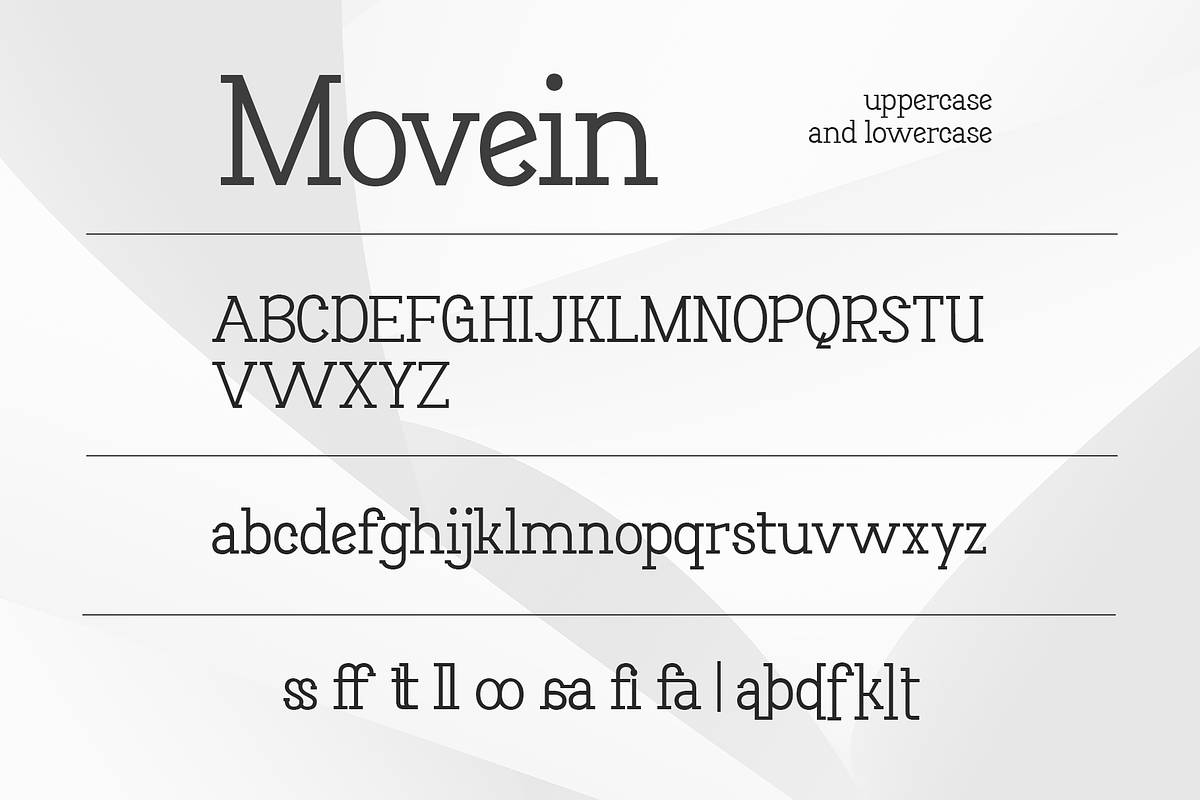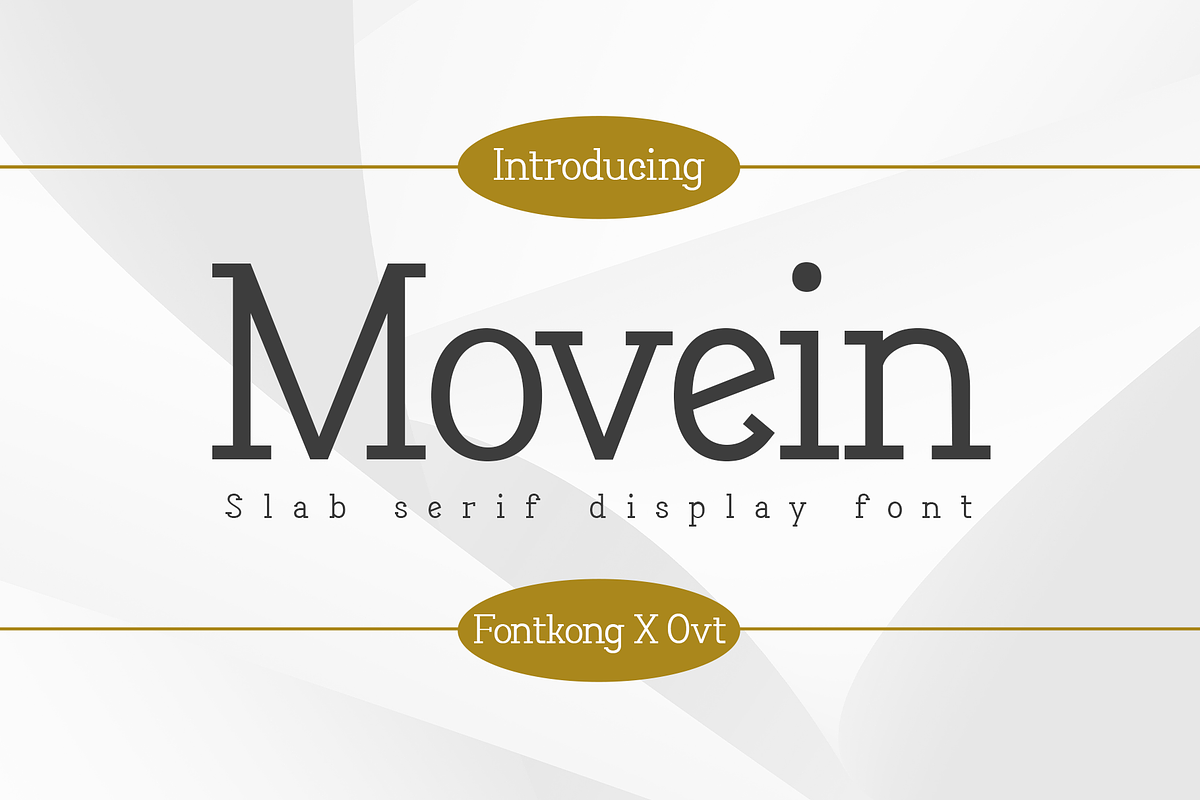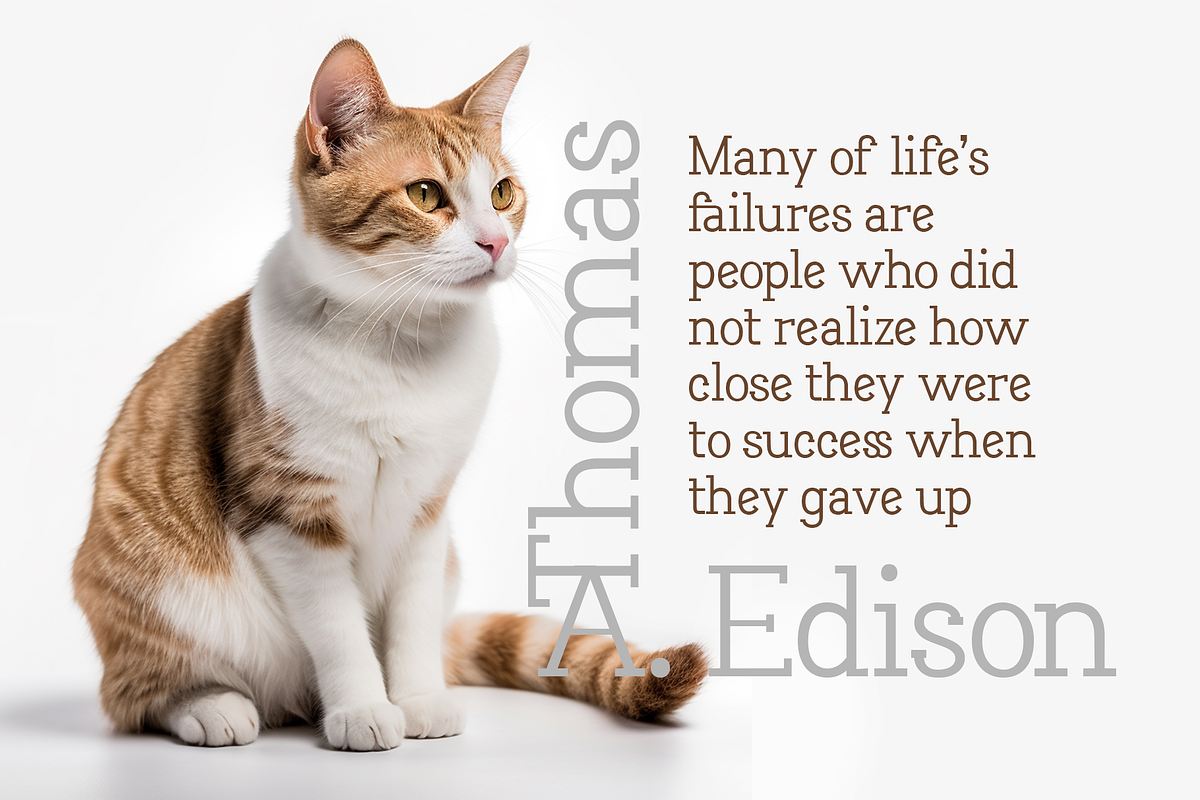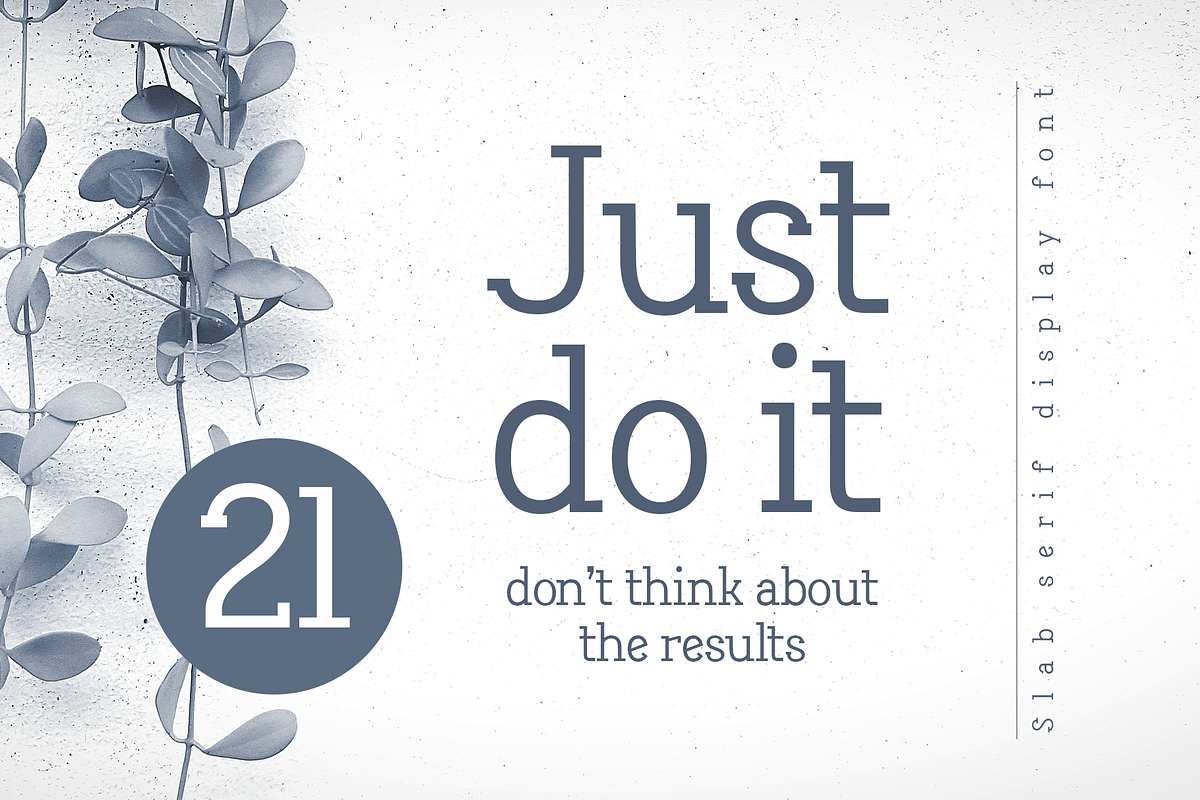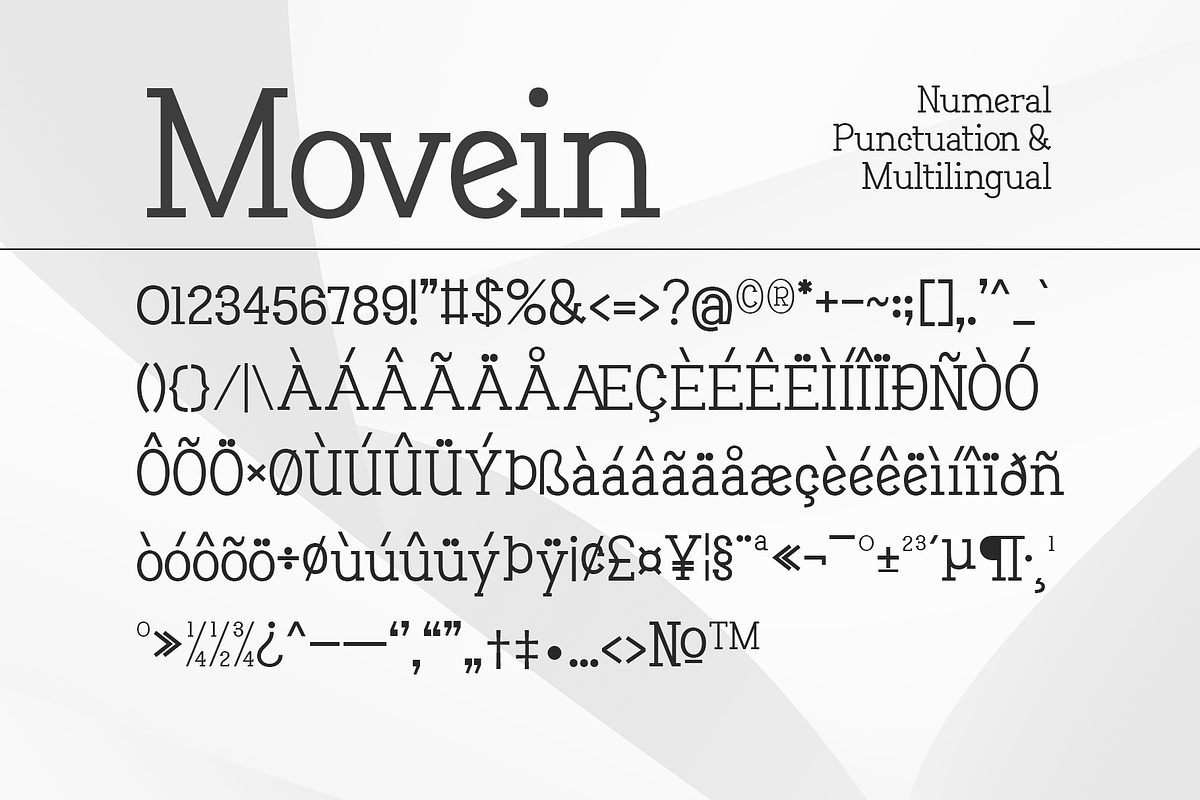
Movein - Slab Serif Display Font
Introducing "Movien," a stunning slab serif display font designed to make a bold statement in any creative project. With its strong, blocky serifs and elegant lines, "Movien" combines classic typography with a modern twist, making it perfect for headlines, posters, branding, and more.
"Movien" features a complete set of uppercase and lowercase letters, numerals, punctuation, and extensive multilingual support. Its robust character and clear readability ensure your message stands out, whether in print or digital formats.
This versatile font is ideal for creating eye-catching titles and captivating logos, adding a touch of sophistication and authority to your design work. The distinctive slab serifs provide a sense of structure and stability, while the refined curves add an element of elegance.
"Movien" is the perfect choice for designers looking to infuse their projects with a blend of classic charm and contemporary style.